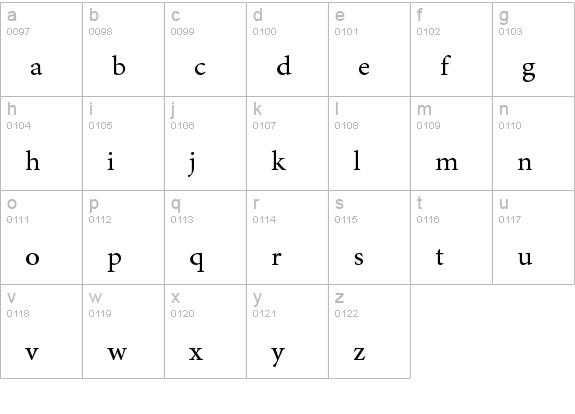
Adobe Arabic Regular is the standard, neutral variant in the Adobe typeface family \xE2\x80\x94 well suited to general body text, paragraphs, and standard typographic work.
Adobe Arabic Regular is a versatile and elegant font that beautifully combines traditional Arabic calligraphy with a modern aesthetic. With its clean lines and balanced proportions, this font is perfect for a wide range of design projects, from branding to editorial design. Its readability and clarity make it a popular choice for both print and digital media. And the best part? Adobe Arabic Regular is available for free download at FontsMarket.com. Take advantage of this incredible opportunity to enhance your designs with this sophisticated and timeless font. Whether you're creating a website, designing a poster, or crafting a logo, Adobe Arabic Regular is sure to make a lasting impression. Download it today and elevate your design projects with this stunning typeface.